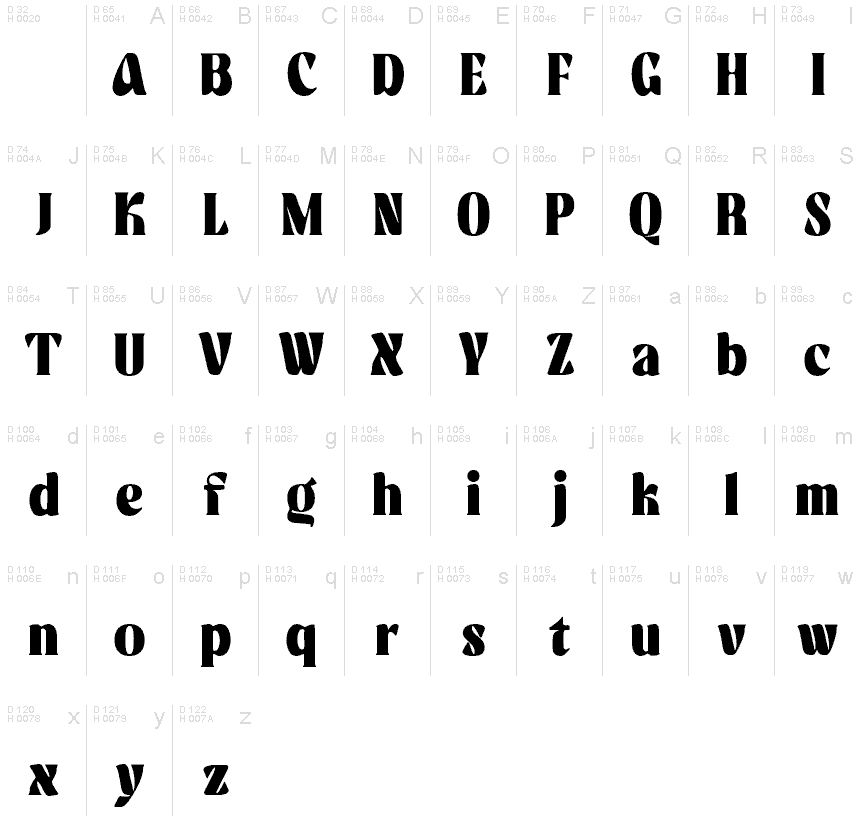
CSAlstonDrawn-Regular Demo
CS Alston Drawn font by Craft Supply Co. has a distinct vintage serif look resembling one from books of a different century. With beautiful curves and lines, all added up as ornaments to the letters, it truly mimics the elegance and style of refined handwriting that characterized formal and important writing.
CS Alston Drawn Demo